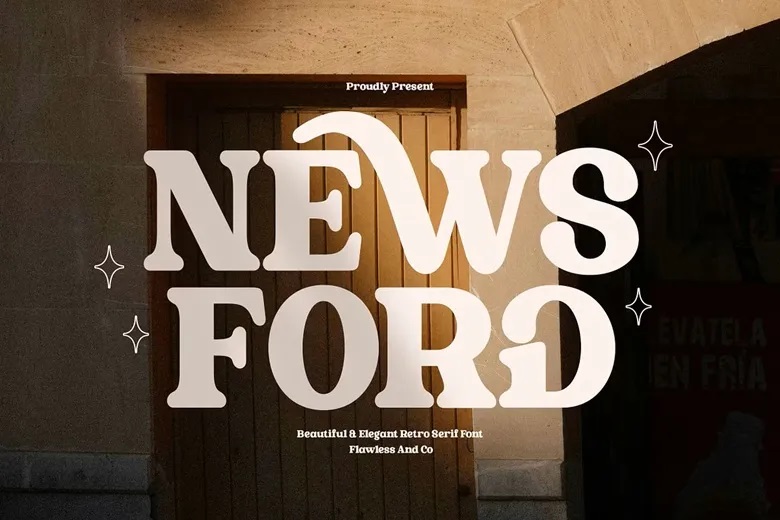
Newsford Font
Newsford is a retro serif font that blends classic elegance with expressive curves and a vintage feel. Its bold, graceful letters, soft rounded details, and unique serifs give your designs a warm, sophisticated look that stands out. Newsford draws inspiration from vintage typography, storefront signs, editorial lettering, and classic brand identities.
It brings a nostalgic touch with a modern twist to every word. Its special proportions and smooth curves make it perfect for bold headlines, letting your typography take center stage.
Newsford Serif Font